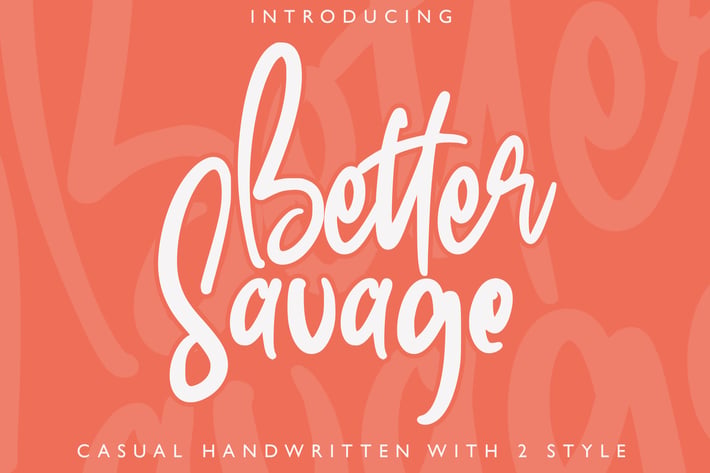
BetterSavage - Handwritten 2 Style Font
BetterSavage - Handwritten 2 Style Font contains a lowercase, uppercase, symbol, and also supports multi-language. There’s a lot of ligature in this font. BetterSavage - Handwritten 2 Style Font also comes with ligatures, stylistic alternates and many more.
this font suitable for fashion, branding, catalog and other design that you want.